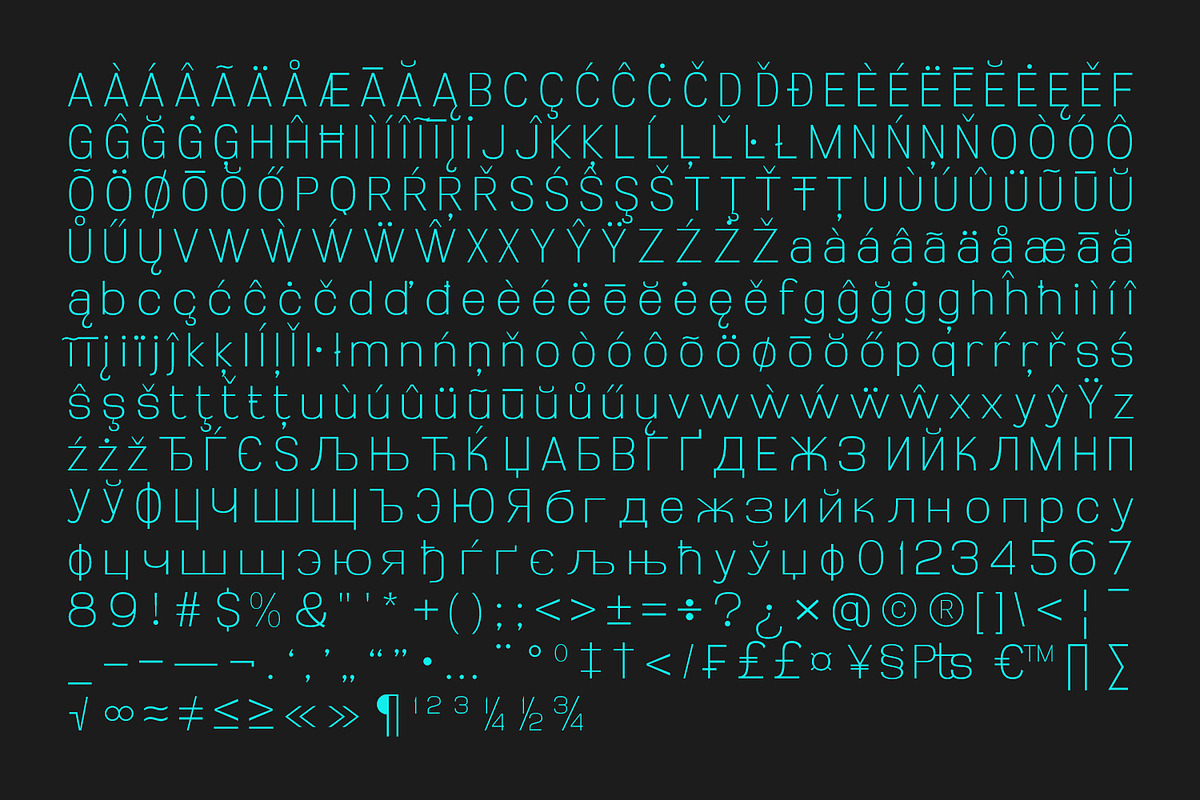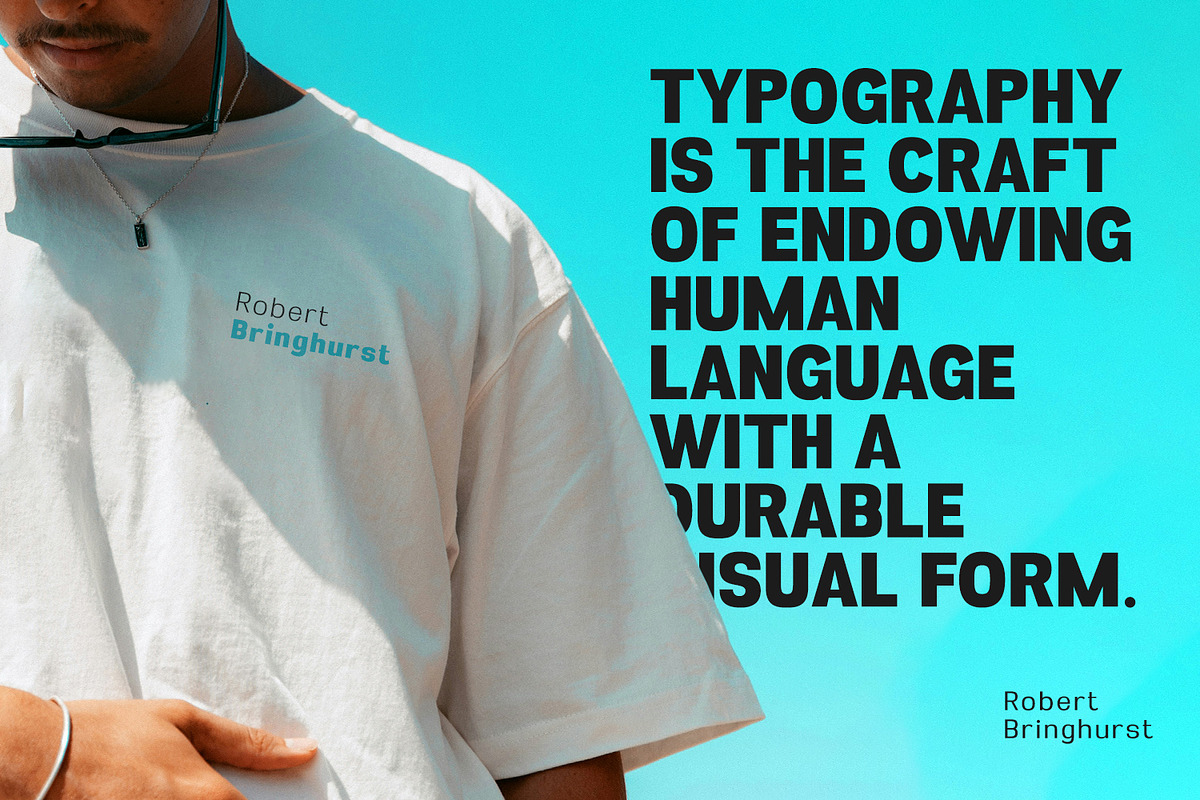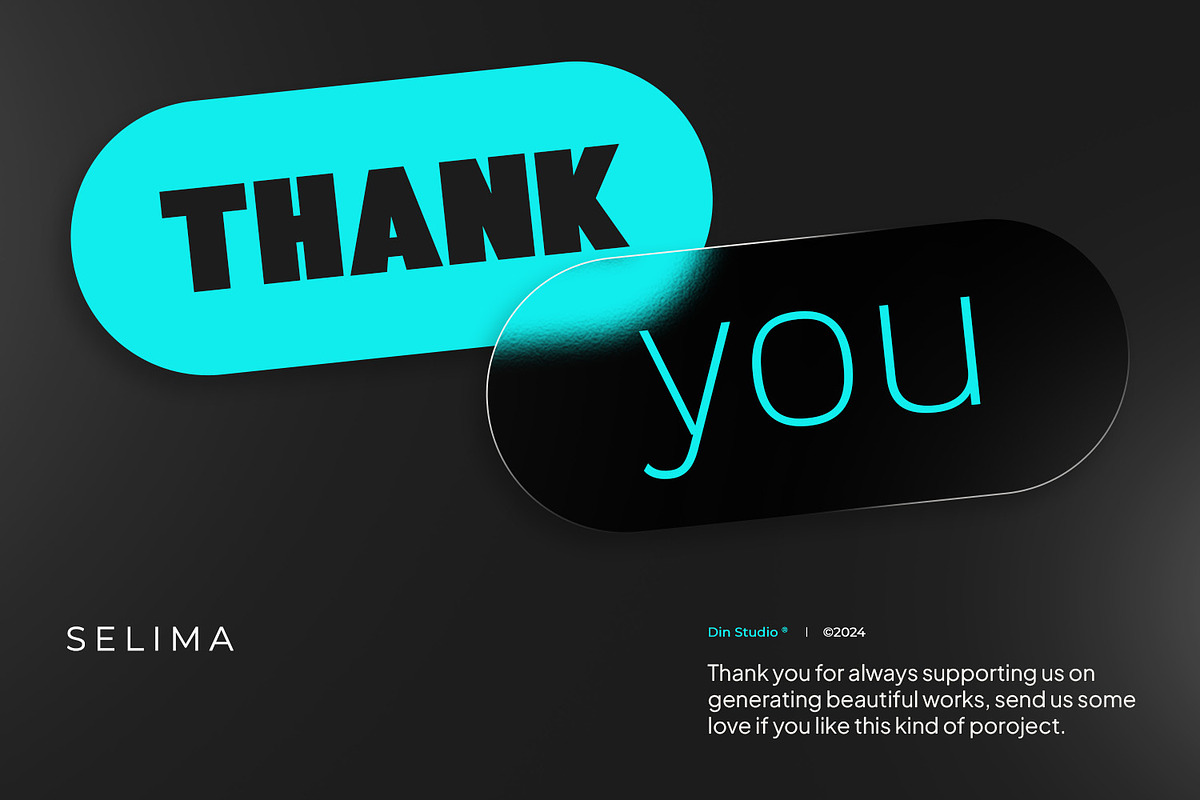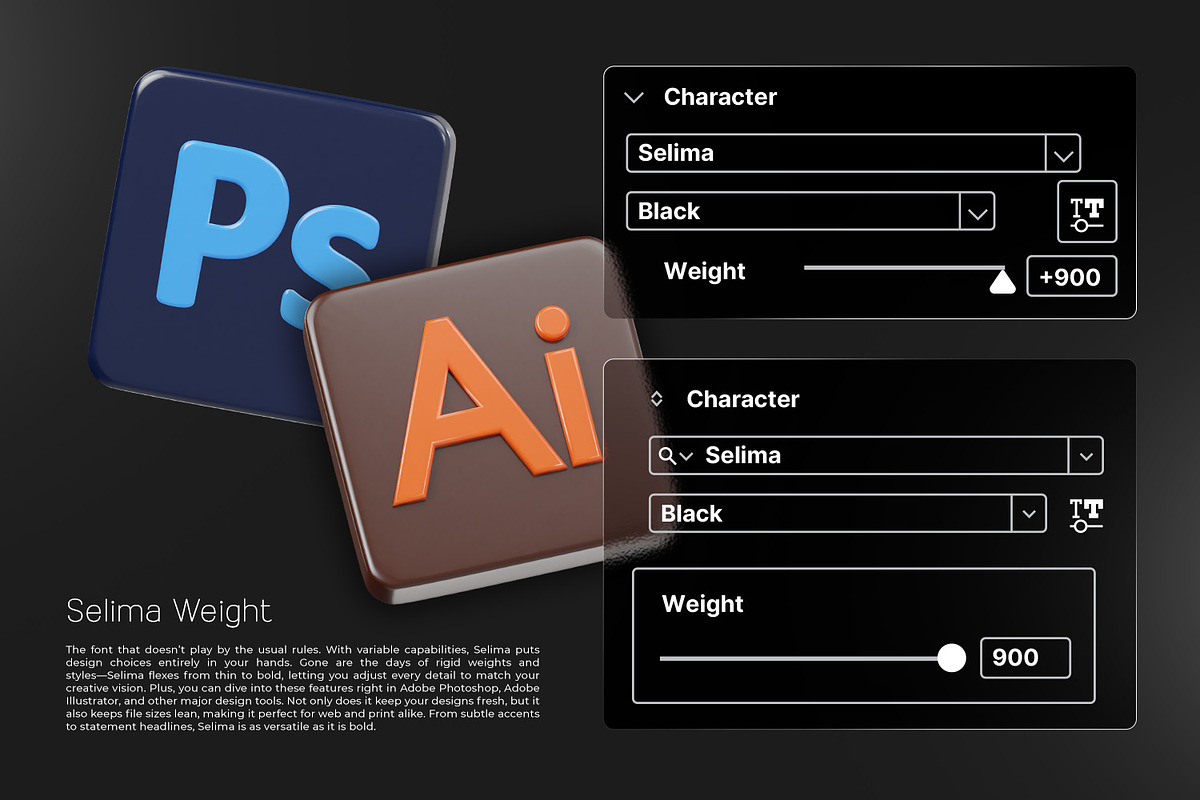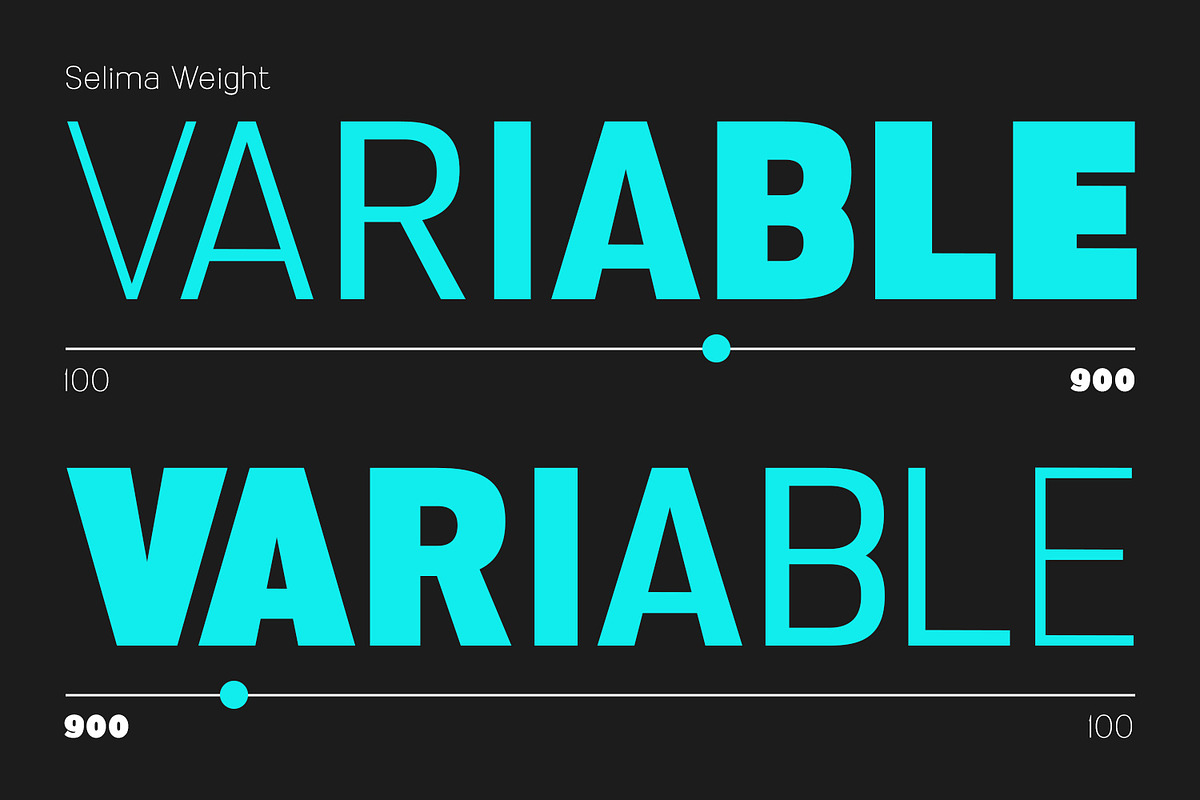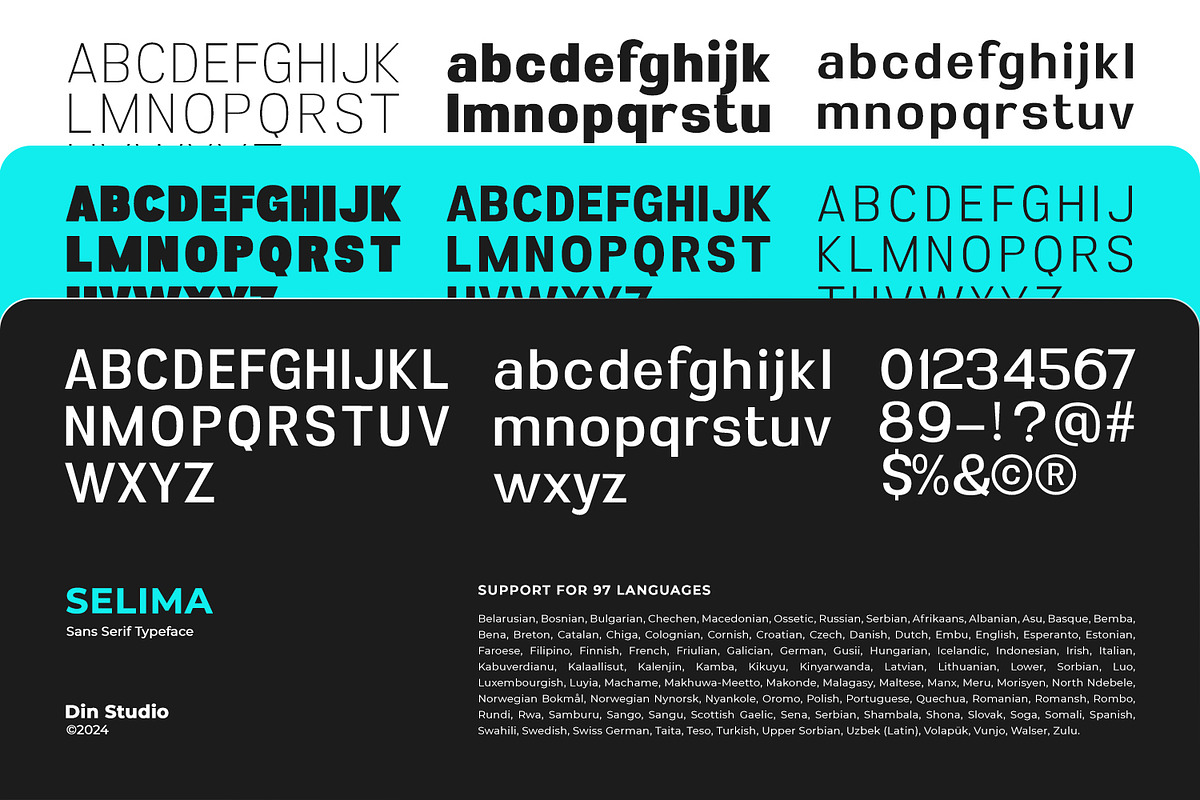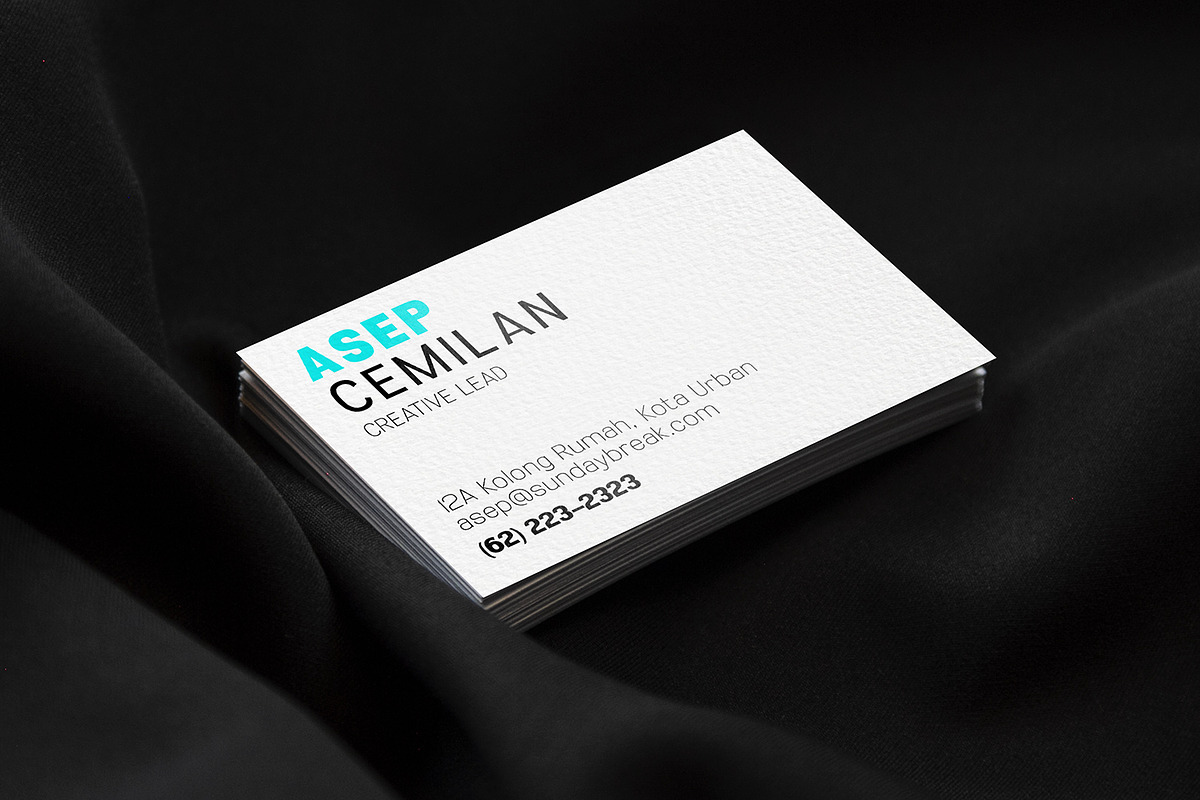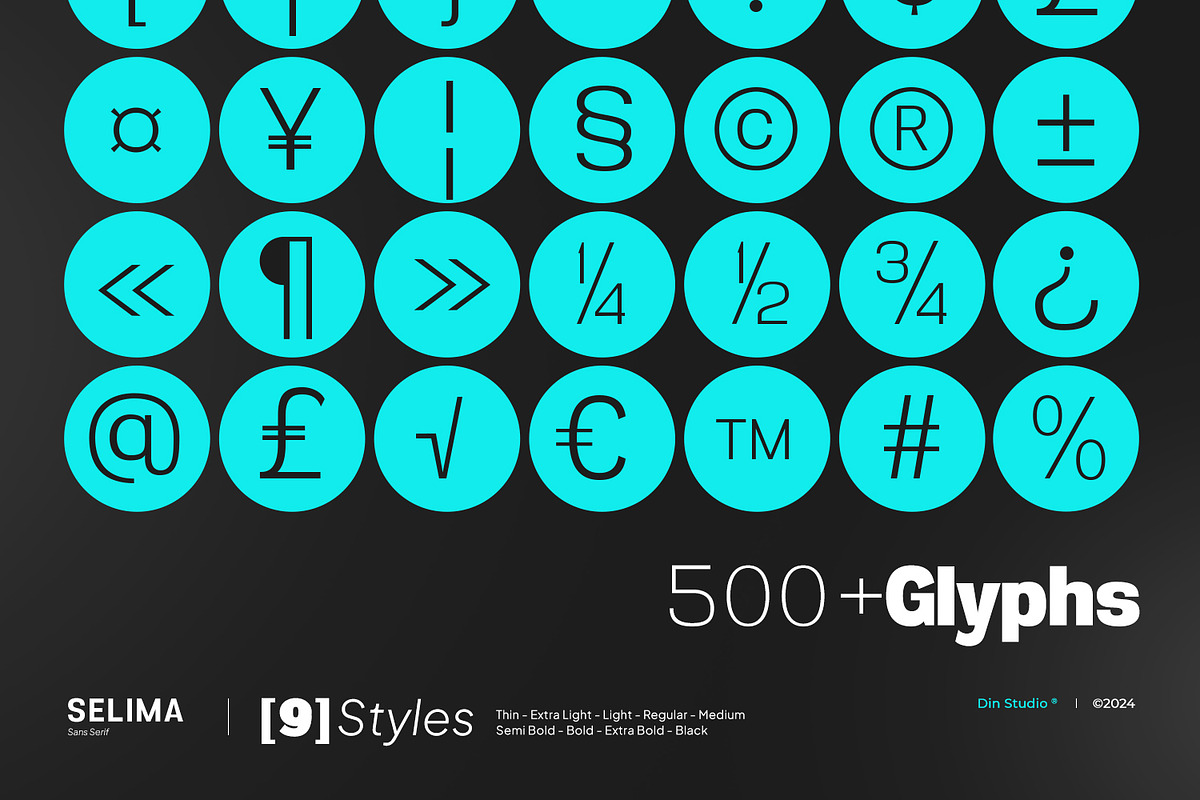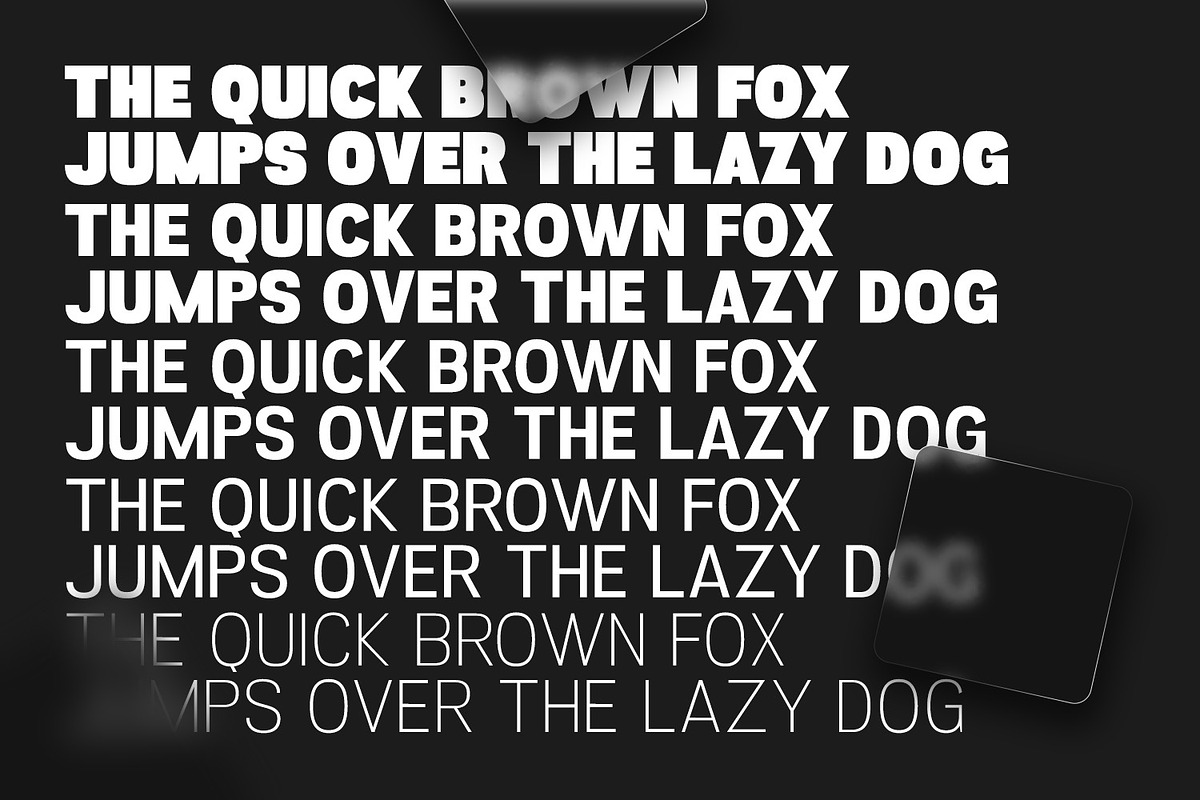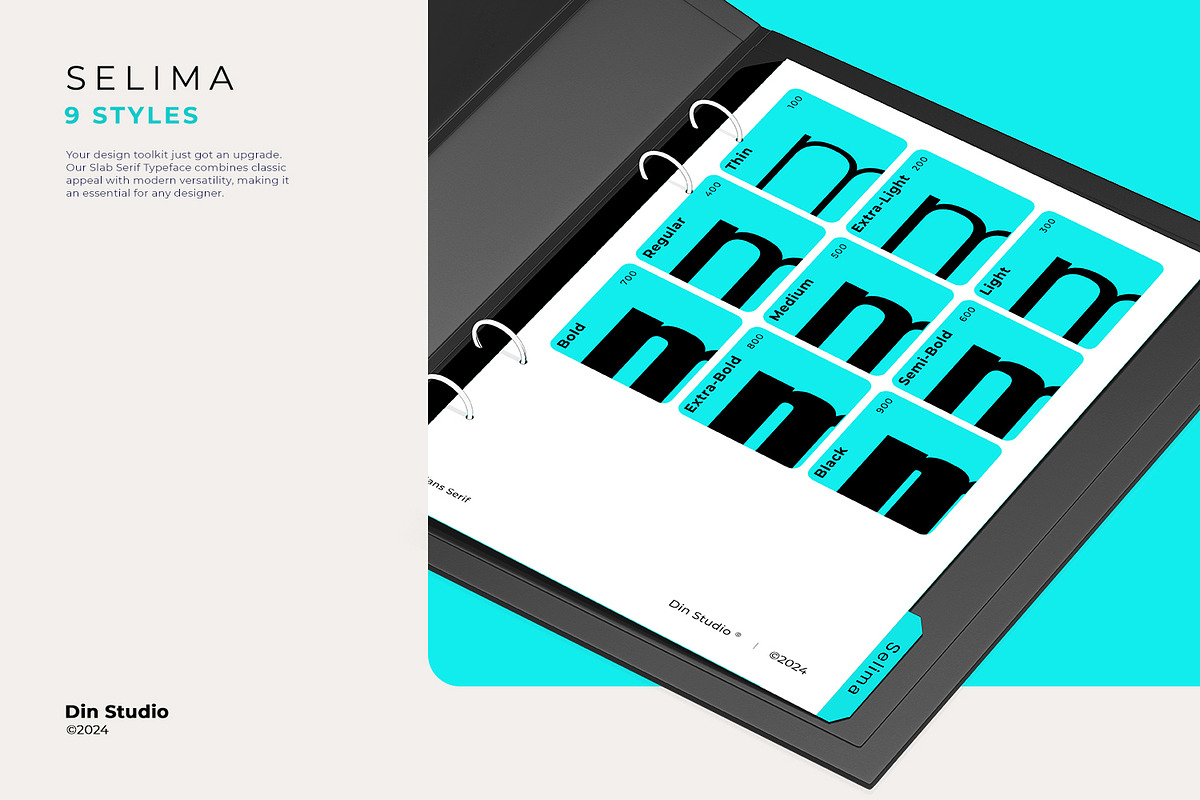
Selima
Discover Selima, a sleek sans serif font family designed with 9 versatile weights to meet all your design needs. Selima masterfully fuses elegance, strength, and modernity, creating a font that is both timeless and contemporary. Its clean lines and refined curves make it ideal for branding, editorial design, web projects, and more. With its perfect balance of sophistication and boldness, Selima ensures your text exudes confidence and style, no matter the application.
Selima’s different weight fonts :
- Thin
- Extra Light
- Light
- Medium
- Semi Bold
- Bold
- Extra Bold
- Black
Selima fits in headlines, logos, posters, invitation, branding materials, packaging, print media, editorial layouts, and many more designs. Find out more ways to use this font by taking a look at the font preview.